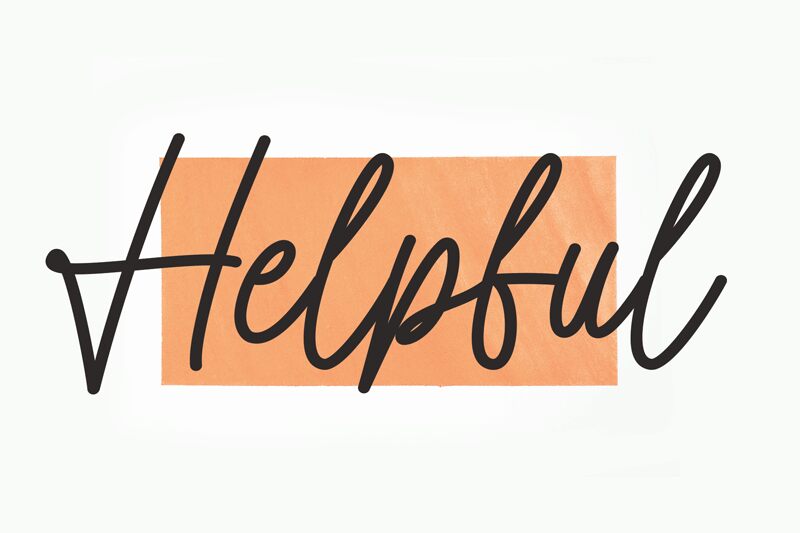
Helpful
Helpful, a delightful creation by Scratchones, is a light, handwritten font that effortlessly adds a touch of elegance and authenticity to any project.
Its elegant curves and smooth strokes make it perfect for wedding invitations, love letters, or any romantic endeavor. On the other hand, the playful nature of this typeface can inject a dose of whimsy into children's books or greeting cards. The versatility of Helpful knows no bounds - whether used in fashion magazines or food blogs, this font will surely captivate readers with its unique charm.